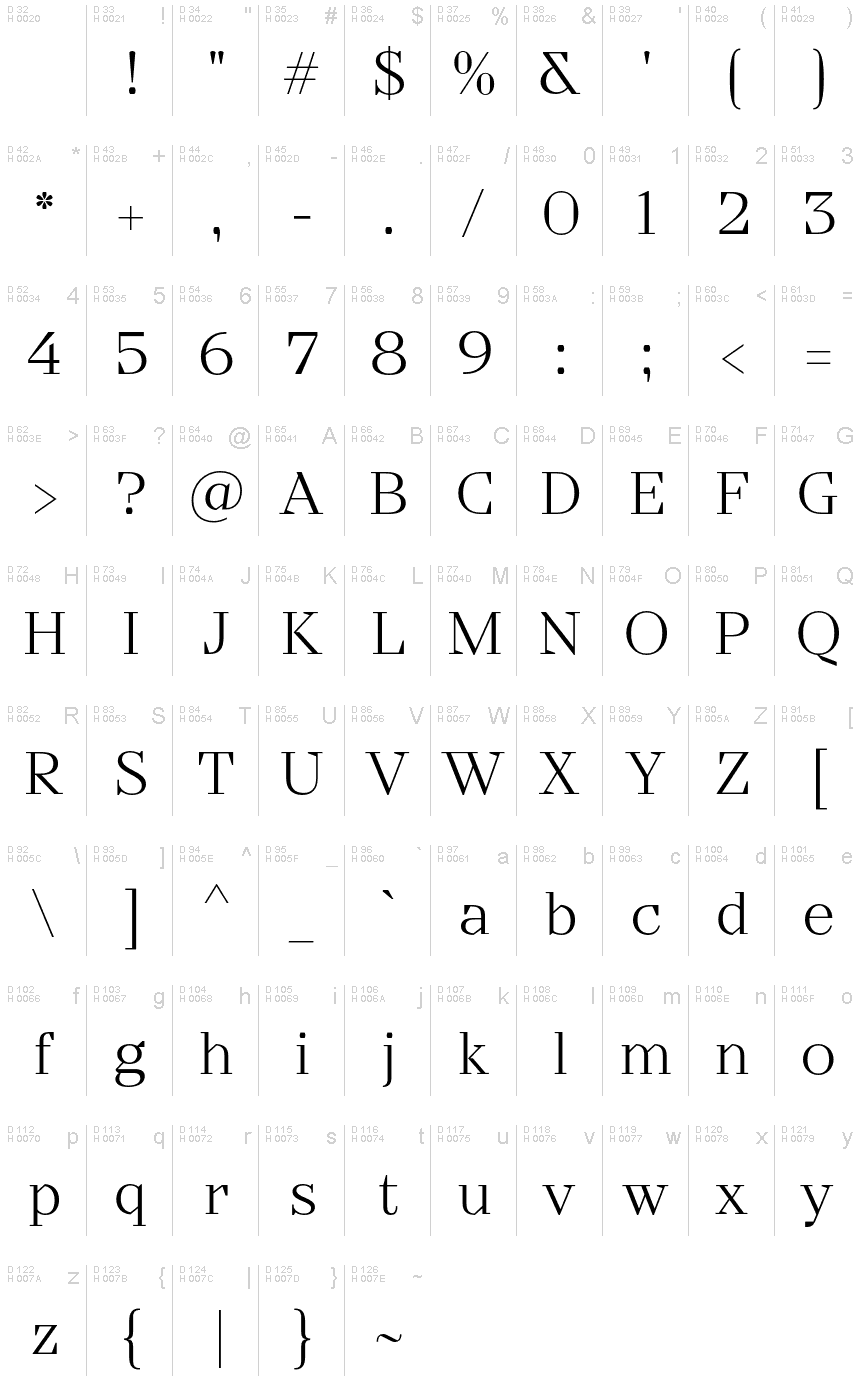
TT Nooks Light is a stunning serif font that exudes elegance and sophistication. Designed by the renowned TypeType Foundry, this font is perfect for projects that require a touch of class and refinement. With its light weight, TT Nooks Light is ideal for creating headlines and titles that are both eye-catching and easy to read. Its stylish serifs also make it an excellent choice for designing logos, book covers, and even invitations. Whether you're working on a branding project or creating a high-end magazine layout, TT Nooks Light is sure to elevate your design game to the next level.
Presentazione e campione visivo del carattere TT Nooks Trial Light
TT Nooks Trial Light